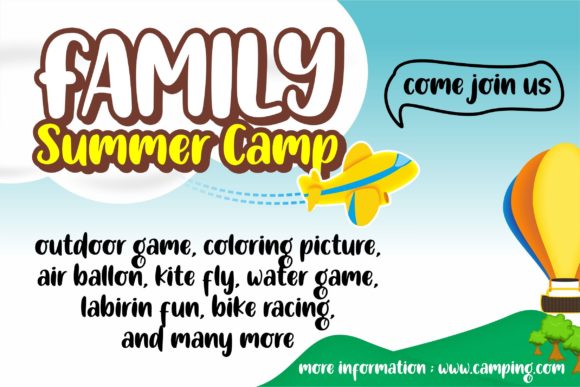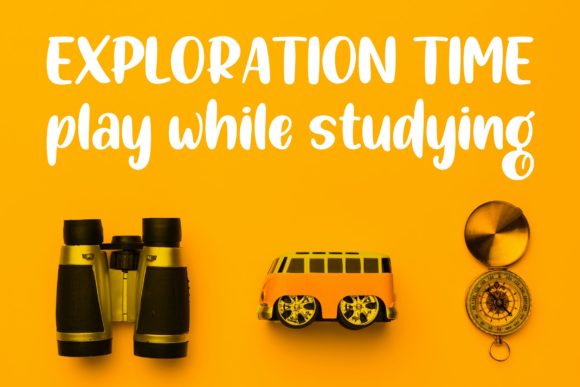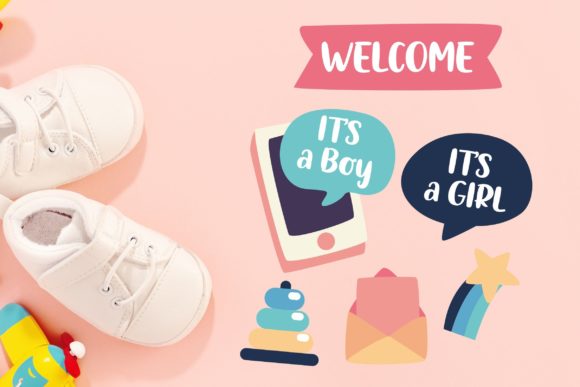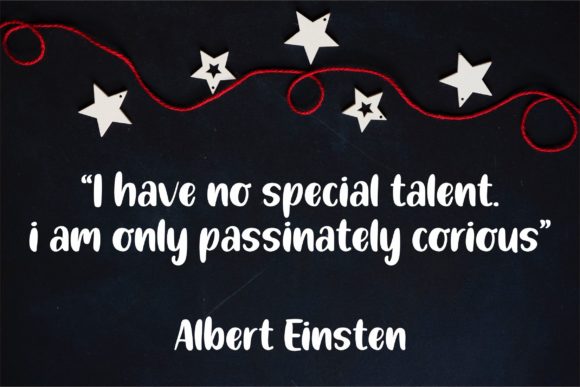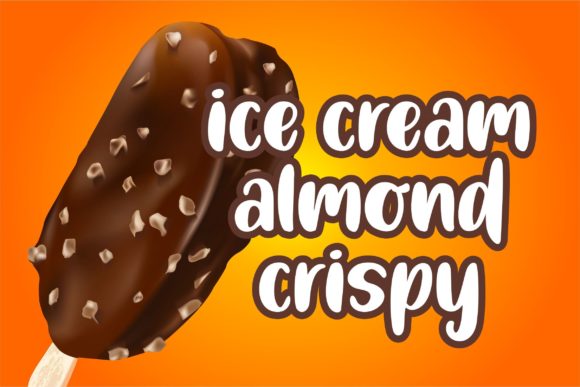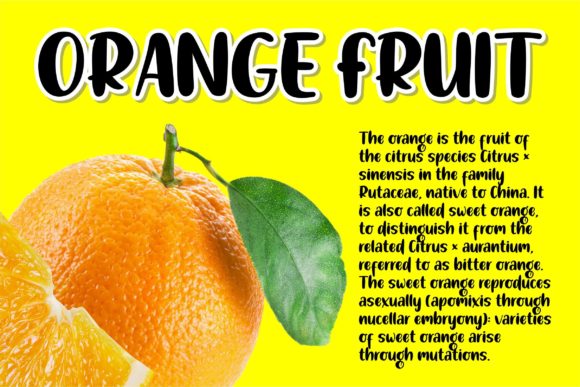
Introduction to Nick and Daddy Font
Nick and Daddy is a cute comic font, carefully handcrafted to become a true favorite.
Its casual charm makes it appear wonderfully down-to-earth, readable and, ultimately, incredibly versatile Nick and Daddy will look outstanding in any context, whether itโs being used on busy backgrounds or as a standalone headline.